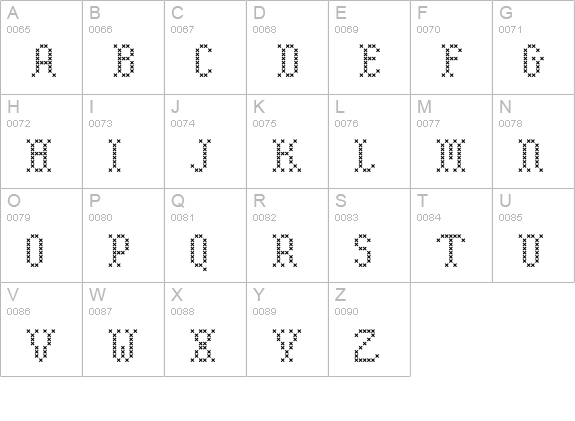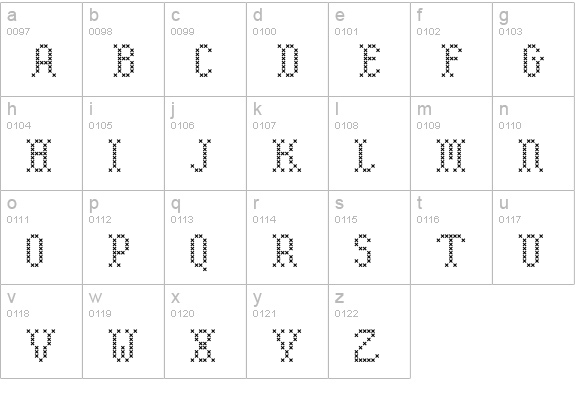
Discover the exquisite beauty of the Embroidery font, a stunning typeface that exudes elegance and charm. Perfect for adding a touch of sophistication to your projects, this intricate font features delicate stitches and intricate details reminiscent of traditional embroidery patterns. With its graceful curves and intricate embellishments, Embroidery font is sure to make a statement on any design project. The best part? Embroidery font is available for free download at FontsMarket.com! Simply visit the website and add this beautiful font to your collection without any cost. Whether you're working on a wedding invitation, a branding project, or any other creative endeavor, Embroidery font will bring a touch of luxury and refinement to your designs. Download it today and elevate your projects with this exquisite typeface.